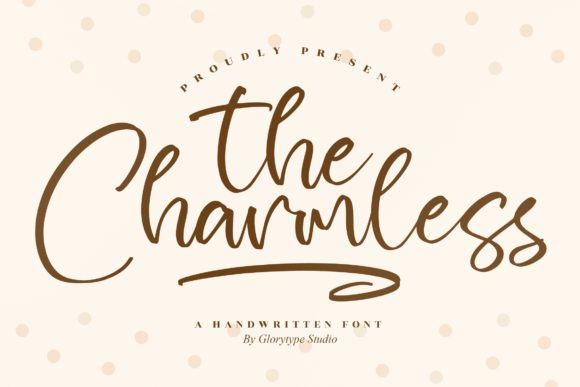
Step into the world of The Charmless Font, a captivating script font family that will ignite your creativity and bring your design visions to life. Embark on a journey of elegance and charm as you explore the endless possibilities this font has to offer. The Charmless Font is not just a collection of letters; it's an expression of individuality, a reflection of your unique style.
With its graceful curves and flowing lines, The Charmless Font will add a touch of sophistication and allure to your designs. Its delicate strokes and playful flourishes will elevate your projects, whether it's a heartfelt wedding invitation, a chic fashion lookbook, or a trendy marketing campaign.
Immerse yourself in the versatility of The Charmless Font. Its wide range of characters, including swashes, ligatures, and alternates, provides endless opportunities for customization. Create stunning logos that exude professionalism and charm, design eye-catching T-shirt graphics that make a statement, or craft enchanting greeting cards that leave a lasting impression.
The Charmless Font is perfect for those seeking to add a personal touch to their designs. Its handwritten feel adds a sense of warmth and authenticity that resonates with audiences. Whether you're a seasoned designer or just starting, The Charmless Font is your perfect companion, guiding you effortlessly towards creating designs that captivate and inspire.